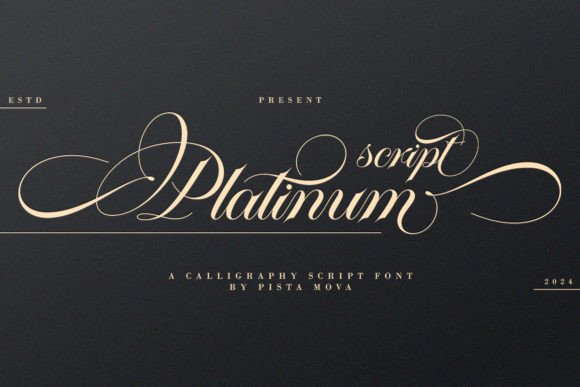
Introducing Platinum Script Font, the perfect blend of elegance and modernity that will captivate your senses. Created by the talented Pista Mova, this font is a true masterpiece that will elevate your designs to new heights.
With its relaxed handcrafted style, Platinum Script Font exudes a sense of softness and sophistication. Its timeless appeal makes it the ideal choice for a wide range of projects, from wedding media to book covers, greeting cards, logos, branding, business cards, and even certificates. No matter the occasion, this font will add a touch of class and luxury.
But what sets Platinum Script Font apart from the rest? Its unique combination of classic and contemporary elements gives it a distinctive edge. It seamlessly blends tradition with innovation, making it the perfect choice for those who seek a font that stands out from the crowd.
Easy to use and versatile, Platinum Script Font is a dream come true for designers of all levels. Whether you're a seasoned professional or just starting out, this font will effortlessly enhance your creativity and bring your visions to life. Its fluid strokes and graceful curves create a harmonious flow that will instantly catch the eye of your audience.
Allow Platinum Script Font to unleash your imagination and infuse your designs with a sense of elegance and excitement. Let its graceful charm transport you to a world where creativity knows no bounds. Don't settle for ordinary fonts when you can have something extraordinary.